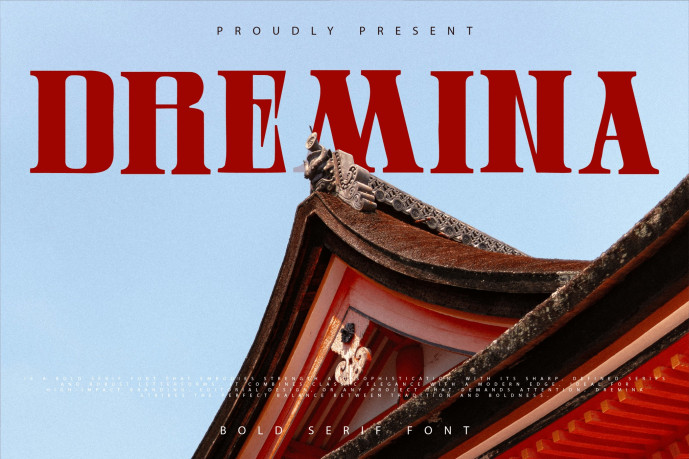
Dremina Font
Dremina Font is a bold serif font that embodies strength and sophistication. With its sharp, defined serifs and robust letterforms, it combines classic elegance with a modern edge. Ideal for high-impact branding, editorial design, or any project that demands attention, Dremina strikes the perfect balance between tradition and boldness.